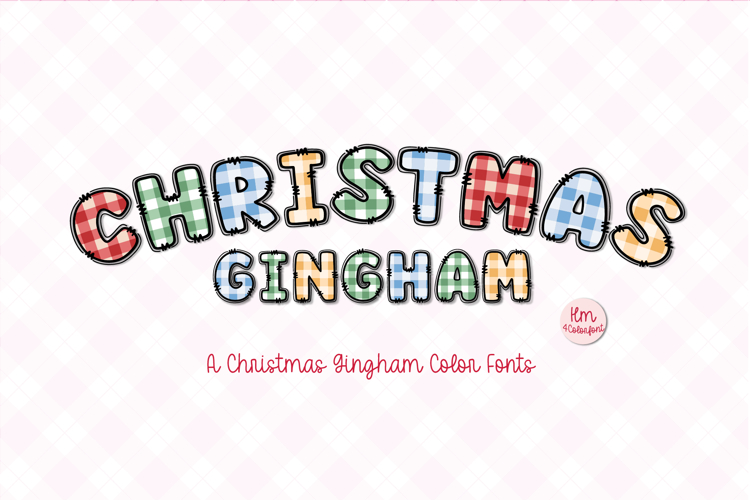
Christmas Gingham Color Font | Plaid Letter Font | Cute Festive SVG Font for Holiday Crafts & Shirts Bring cozy holiday vibes to your designs with Christmas Gingham Color Font — a playful plaid-style alphabet perfect for Christmas crafts, cards, T-shirts, and festive decorations.